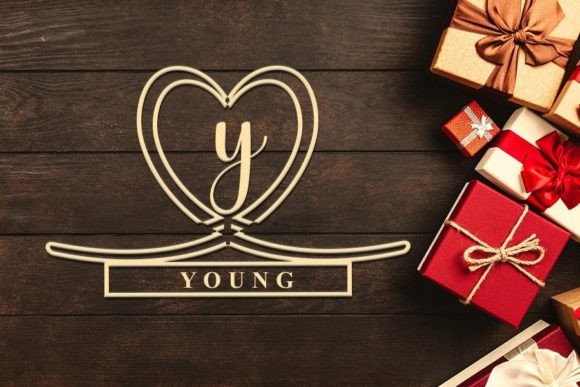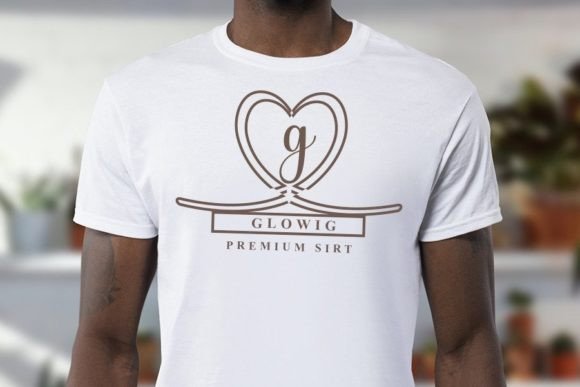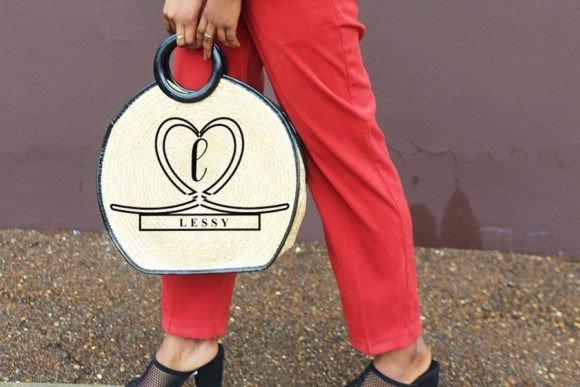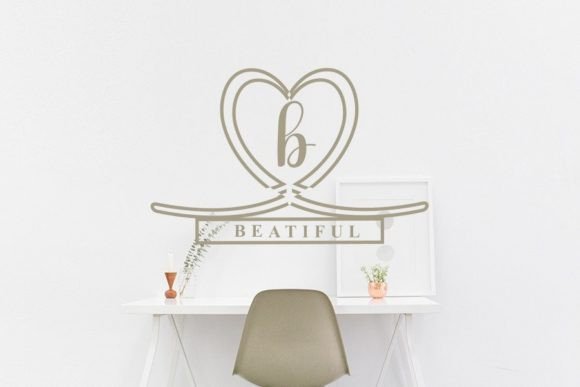
The Perfect Monogram Font for Your Next Design Project
Have you ever stared at a blank page, trying to come up with the perfect design concept, only to be inspired by a single font? That’s exactly what happened to me when I discovered the Apple Love Monogram Font. Its elegant and sophisticated design made me want to create something special – a logo, a wedding invitation, or perhaps a social media post that would showcase its beauty.
The Apple Love Monogram Font is a refined monogram font designed for logos, branding, invitations, stationery, and more. Its PUA encoding allows designers to access all the amazing glyphs and ligatures with ease, making it a valuable tool for any creative project. With its classy and modern design, this font is perfect for adding a touch of sophistication to any design.
Apple Love Monogram Font Key Features
- Font Family: A unique, hand-drawn monogram font with a touch of elegance and sophistication.
- Unique Characteristics: Includes 5 alternate versions of the monogram, allowing for creative customization and versatility.
Designer Review: Apple Love Monogram Font
At first glance, the Apple Love Monogram Font seems like a sweet and charming addition to any design project. ✨ I love the playfulness and whimsy it brings to the table, making it perfect for designs that need a touch of romance and elegance. The font’s curves and flourishes add a level of sophistication that’s hard to resist.
However, I do have some concerns. ✨ The font’s design can be quite busy, making it difficult to read at smaller font sizes. This is especially true when using the font in body text or for longer paragraphs. Additionally, the font’s weight and style can make it challenging to pair with other fonts, which may limit its versatility.
- Playful and whimsical design
- Sophisticated curves and flourishes
- Perfect for romantic and elegant designs
- Difficult to read at smaller font sizes
- Challenging to pair with other fonts
Overall, I think the Apple Love Monogram Font is a solid addition to any designer’s toolkit. While it may have its limitations, it’s perfect for projects that require a touch of romance and whimsy. Just be sure to use it judiciously and pair it with other fonts that complement its unique style.
Tips for Getting the Most Out of the Apple Love Monogram Font
Use the Apple Love Monogram Font to create elegant and sophisticated designs, such as wedding invitations, baby shower invitations, or luxury product packaging. Experiment with different font sizes and colors to create a unique look. Combine the font with other design elements, such as graphics and textures, to add depth and interest to your designs.
The Apple Love Monogram Font is ideal for various design projects, including:
– Luxury product packaging and branding
– Baby shower invitations and decorations
– High-end event invitations and marketing materials